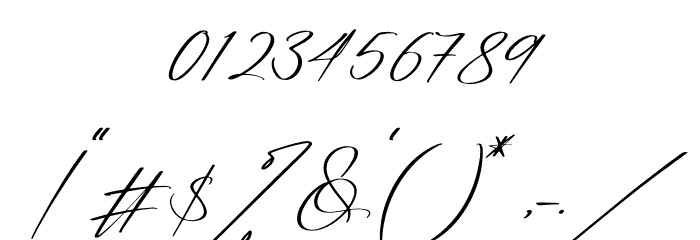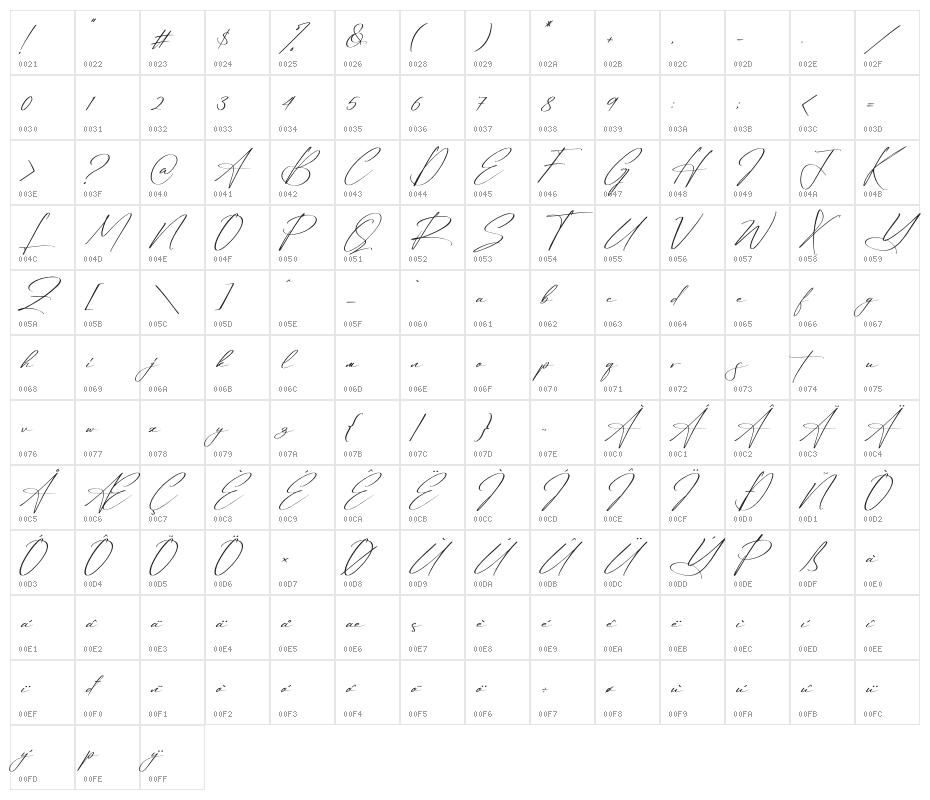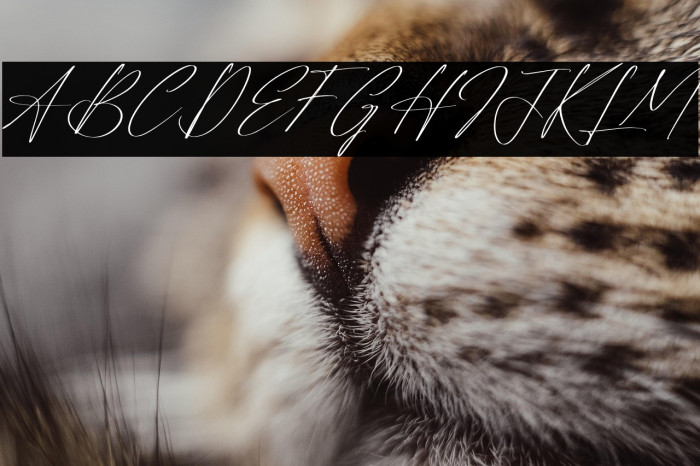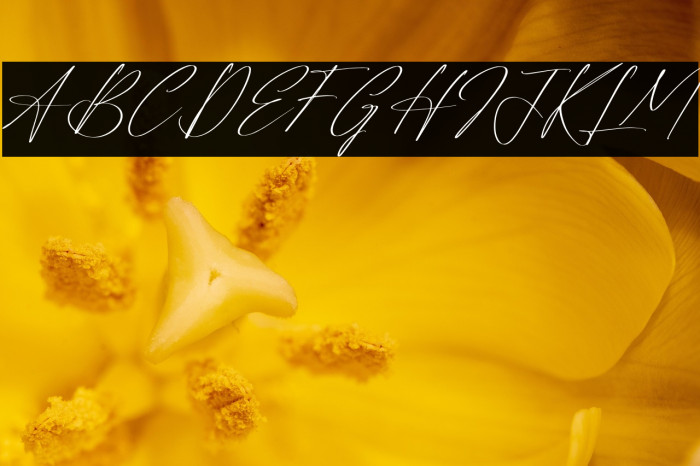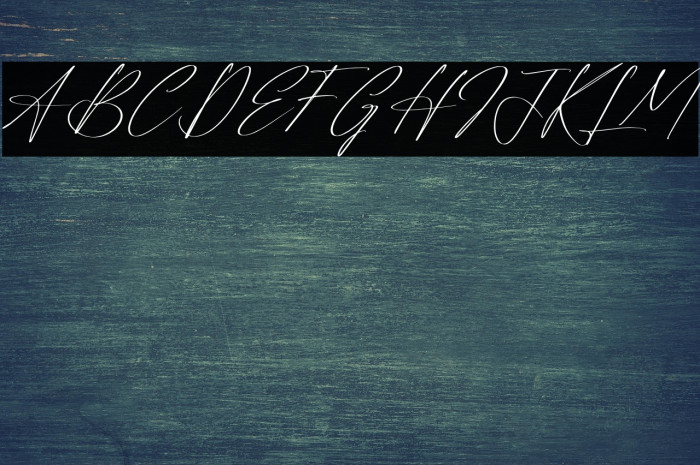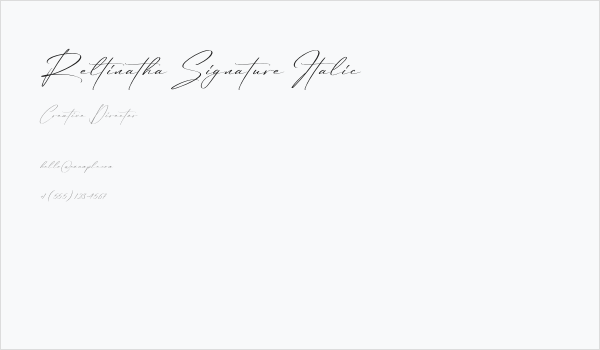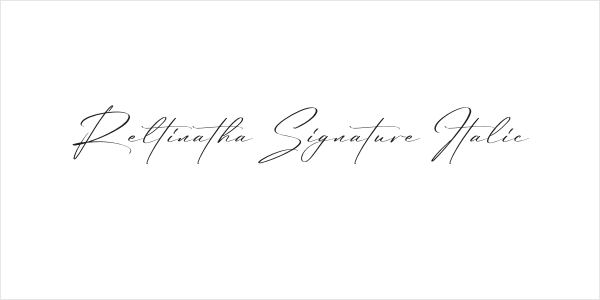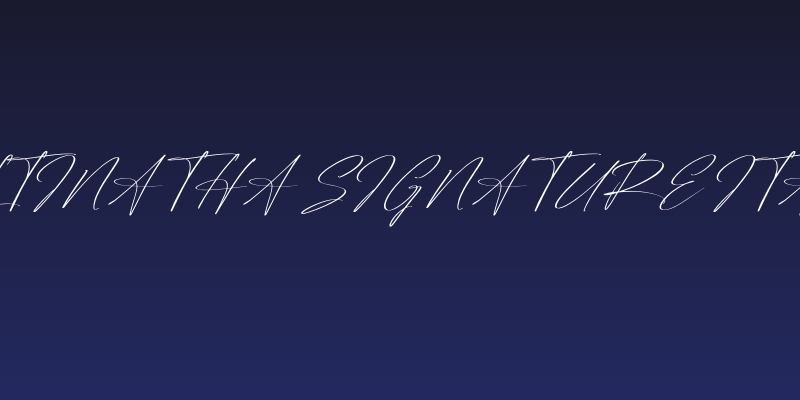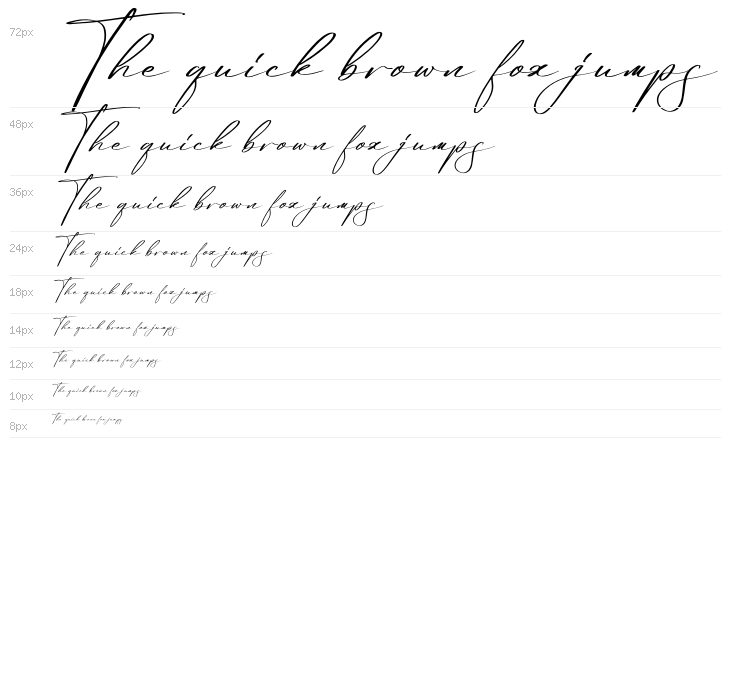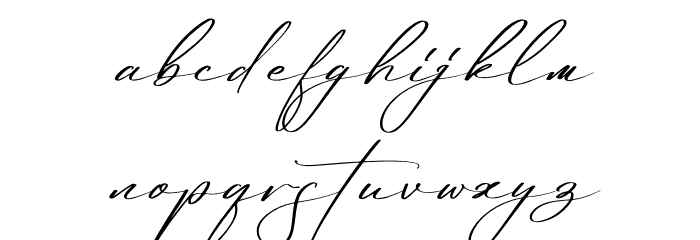
Reltinatha Signature Italic Font
Reltinatha Signature Italic Description
This elegant script font features a flowing, cursive style that mimics the fluidity of a handwritten signature. The characters are connected with smooth, sweeping lines, creating a sense of motion and grace. The uppercase letters are tall and slender, while the lowercase letters maintain a consistent flow, enhancing readability despite their intricate design. The numbers and special characters are crafted with the same attention to detail, ensuring a cohesive look across all elements. The font's delicate strokes and slight slant give it a sophisticated and refined appearance, making it ideal for projects that require a touch of elegance.
| Proposed Projects | Ideal for wedding invitations, personal branding, elegant logos, and upscale packaging. |